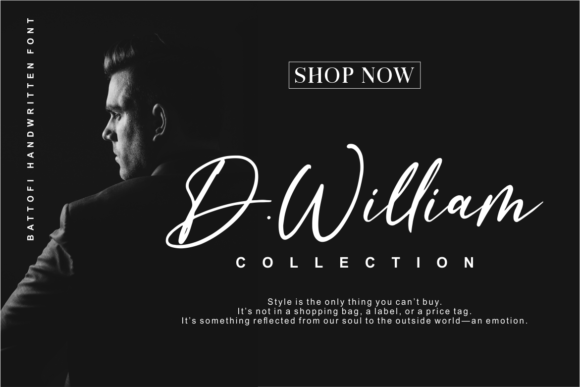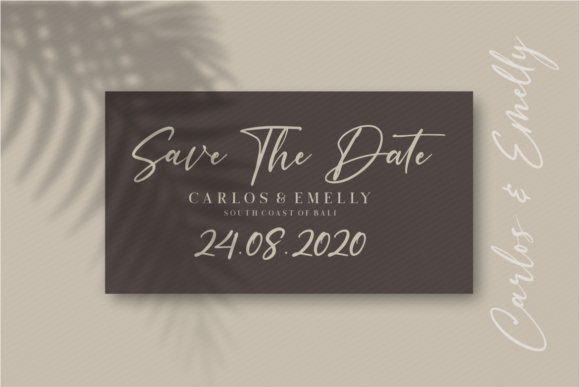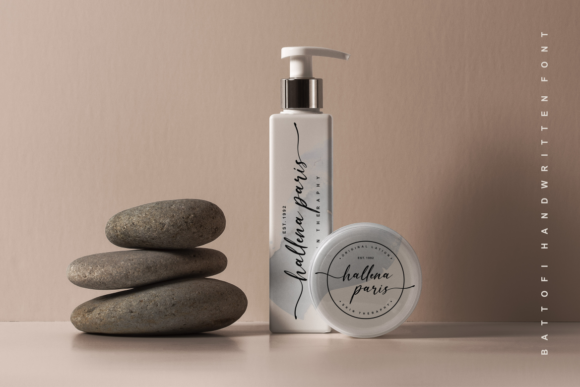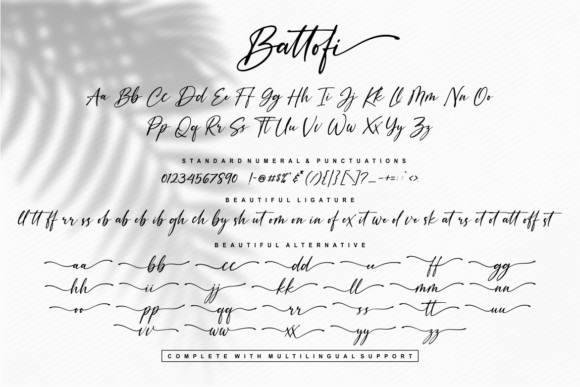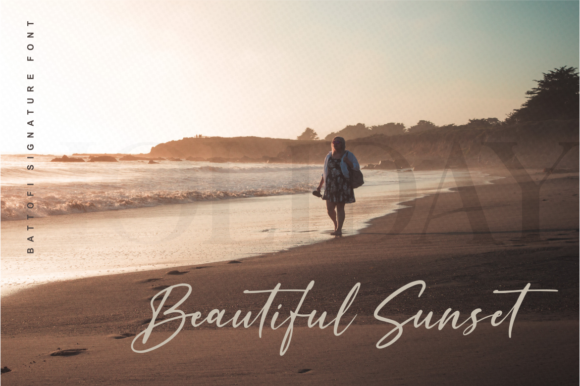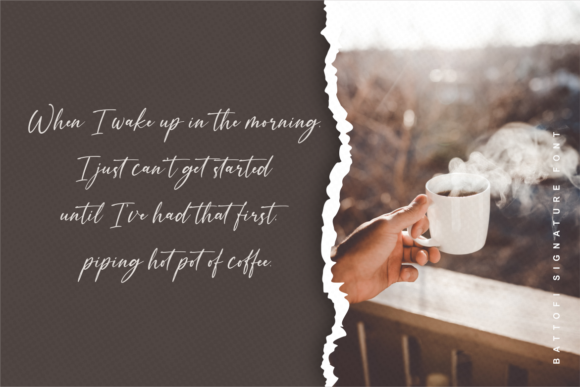
Battofi Font
About Battofi Font
Battofi is an elegant and modern script font with a charming style. It will add a romantic touch to any crafting project!